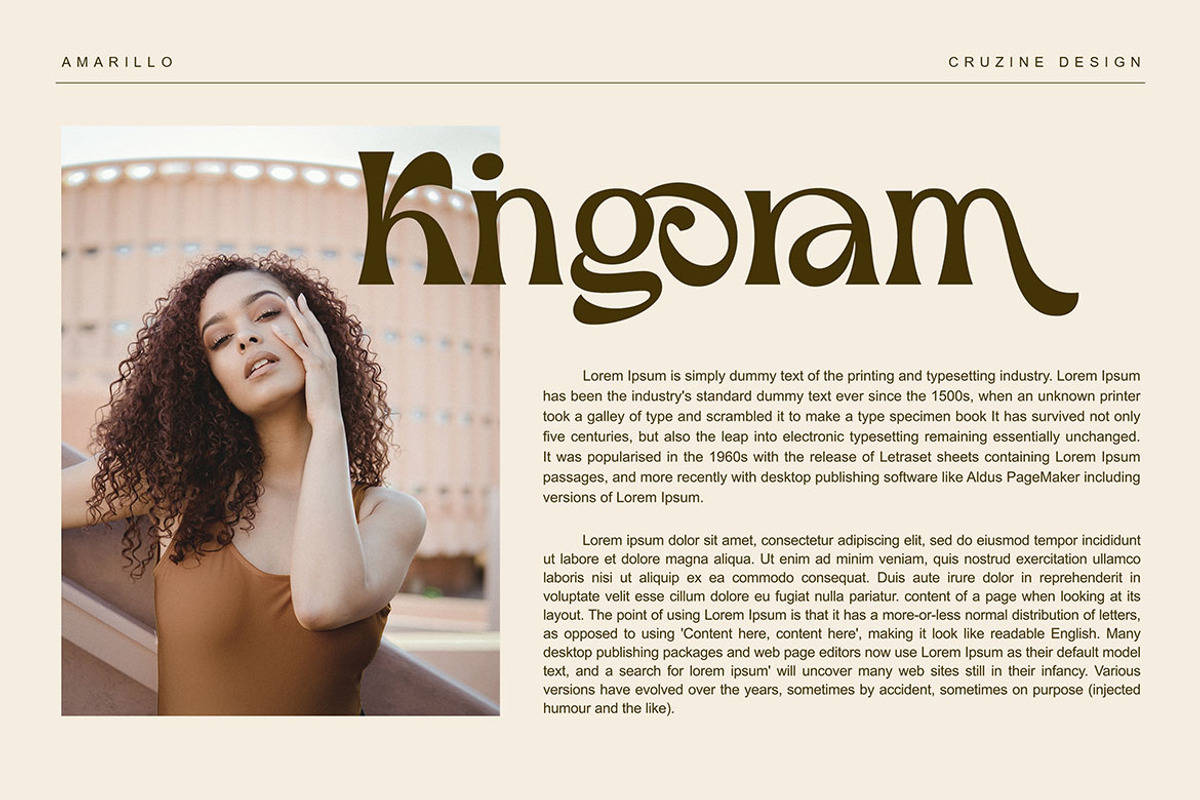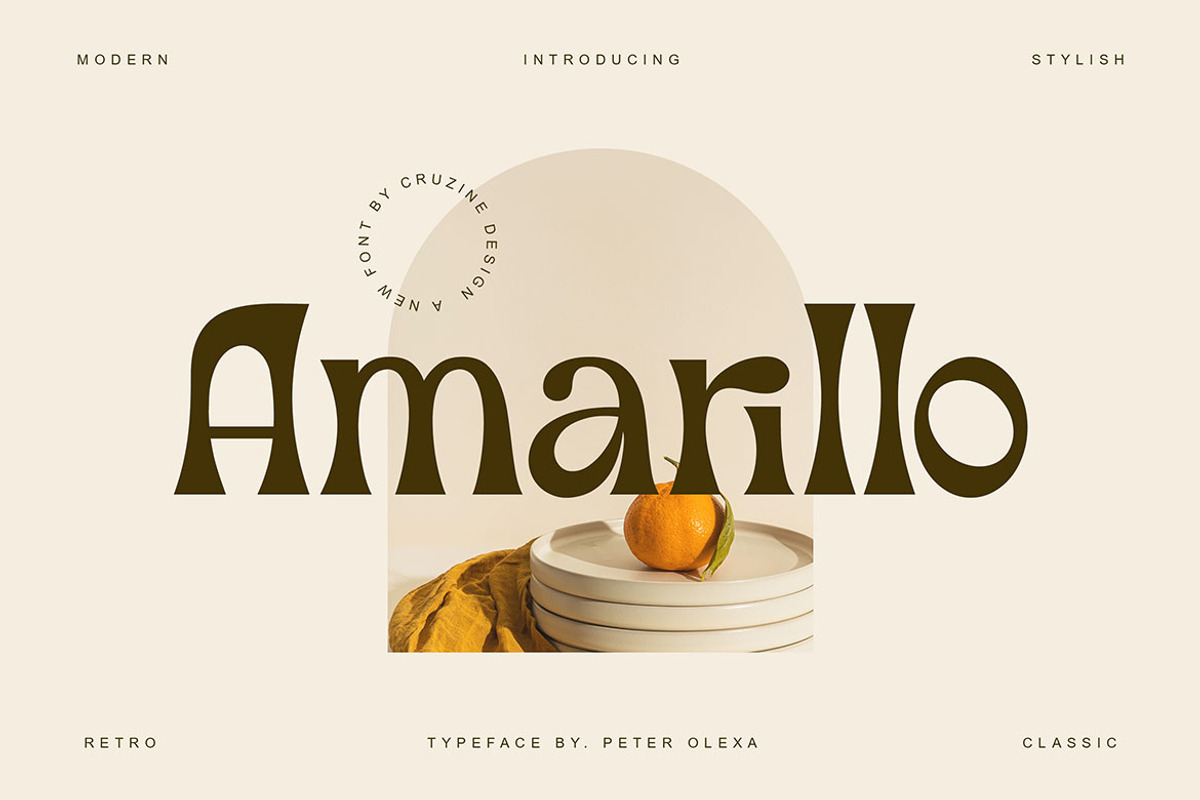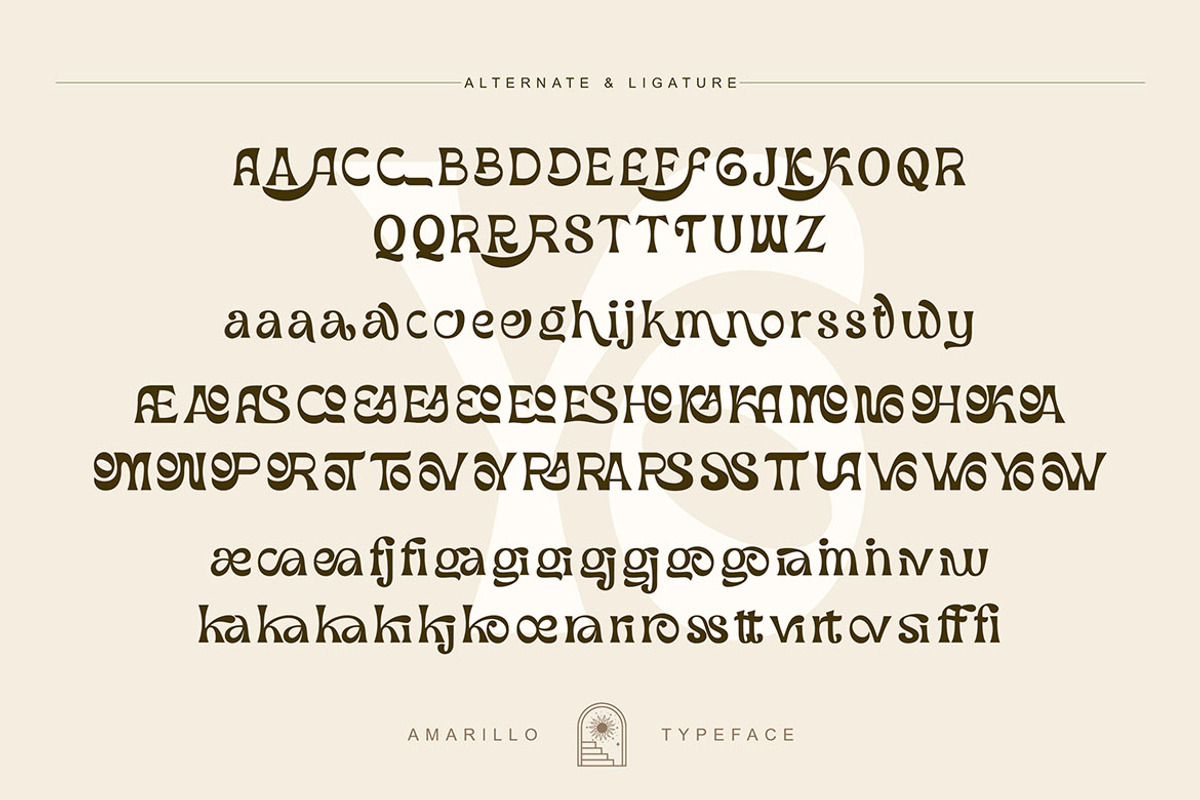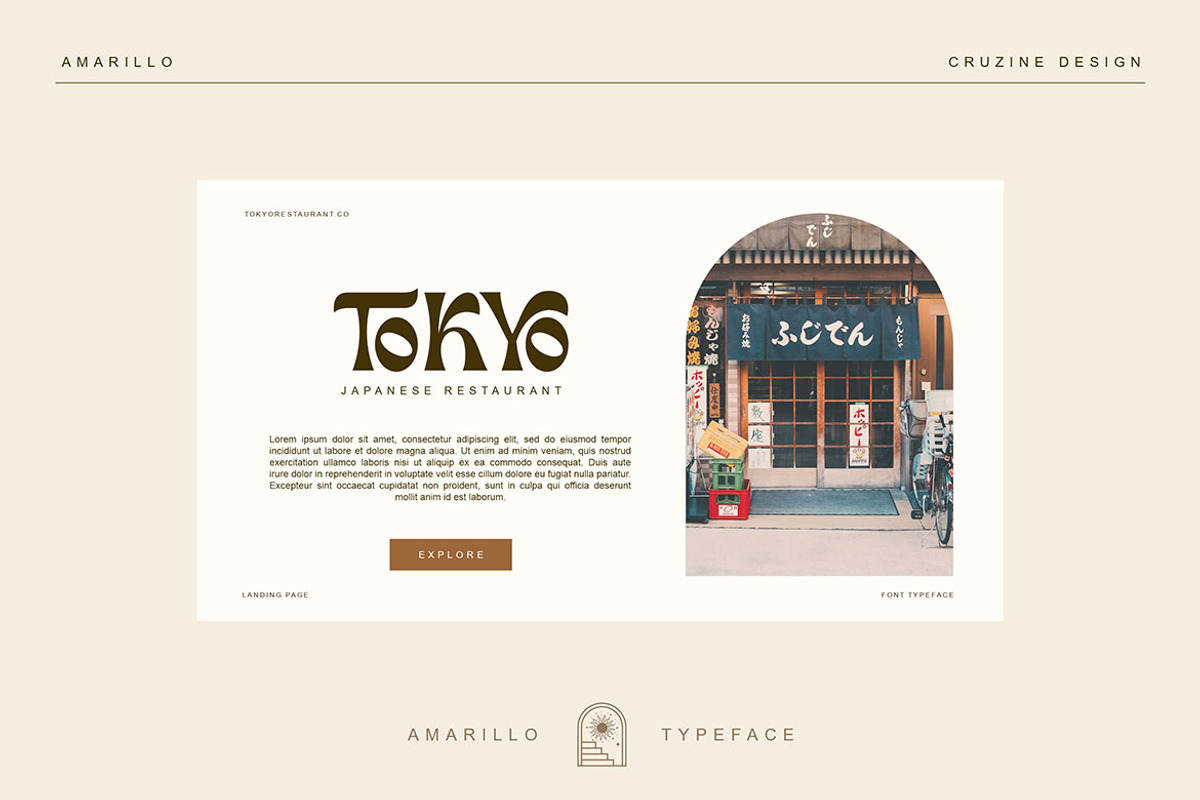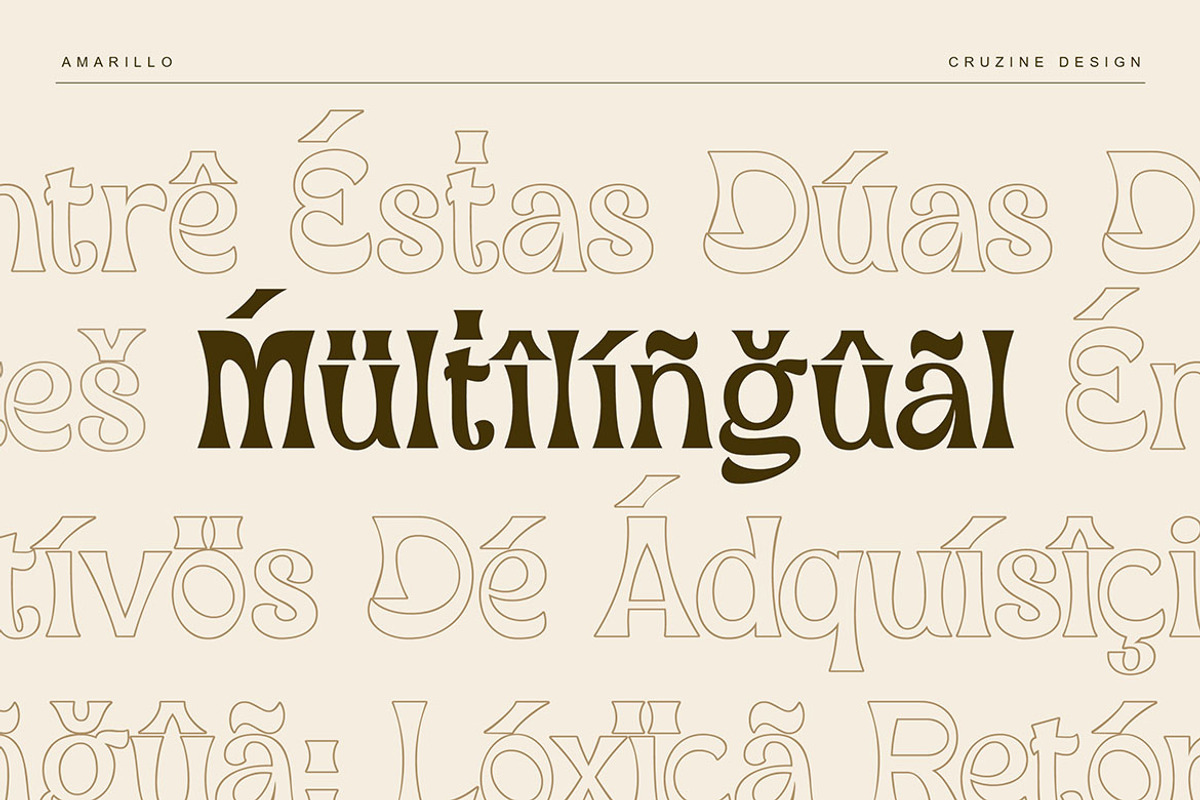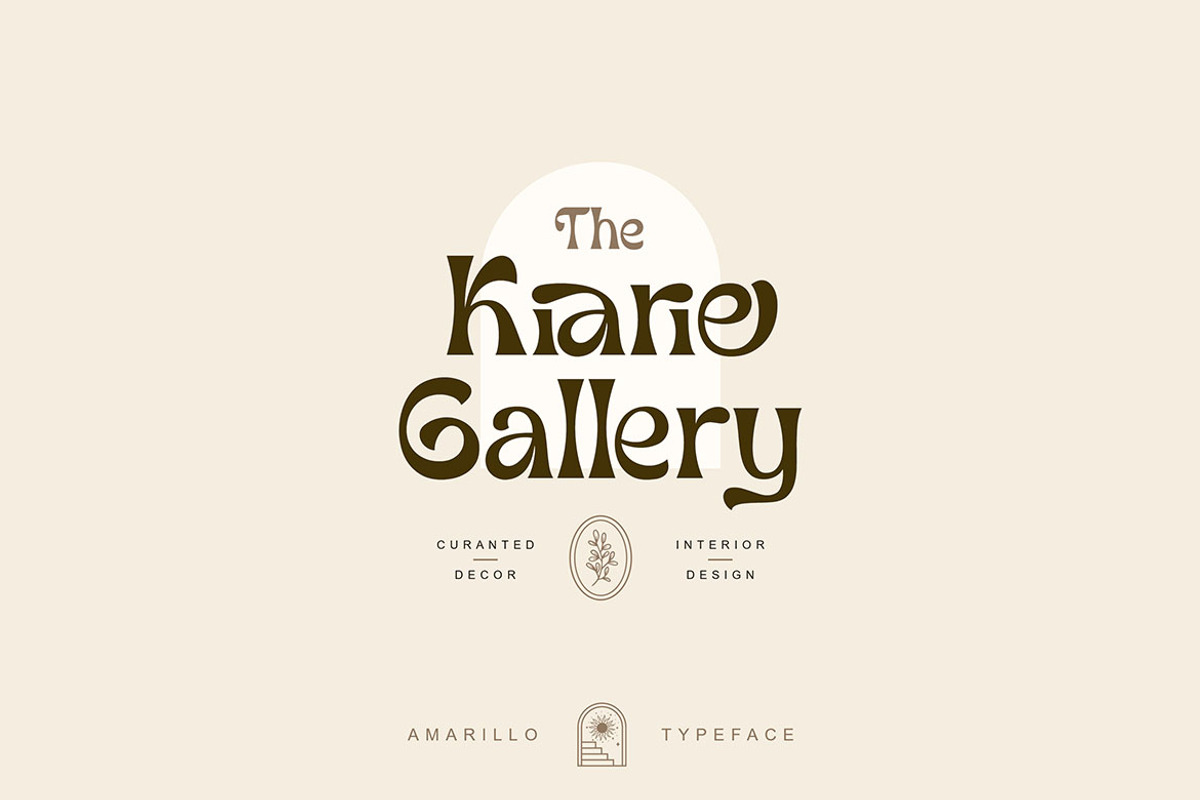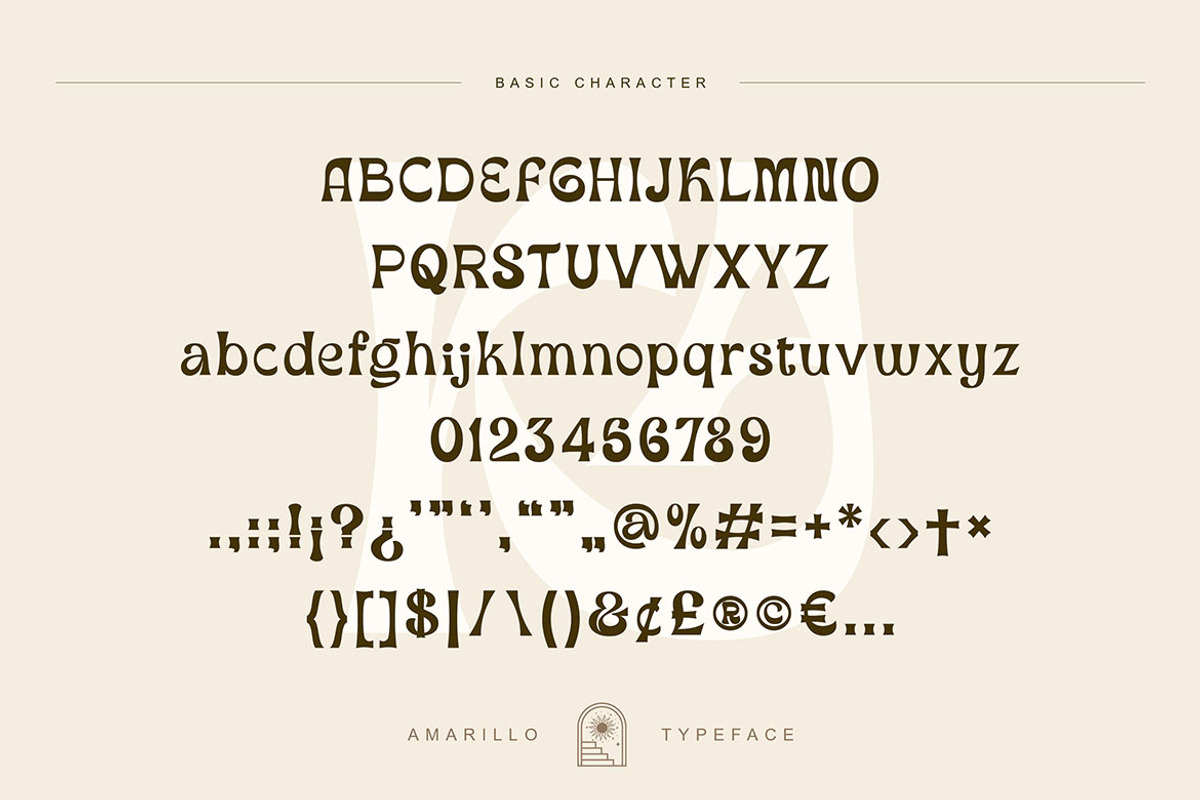
Amarillo - Modern Sans Font
Trendy, bold & modern style sans font for your fancy projects. Elegant, funny and classic style on Amarillo font will be great for any branding project. Lot of alternates and ligatures will help you to create unique and original logo design or website header! Enjoy :)
- 3 styles: Regular & Italic & Outline
- Lot of alternate characters
- Lot of ligatures
- Great for modern branding projects!